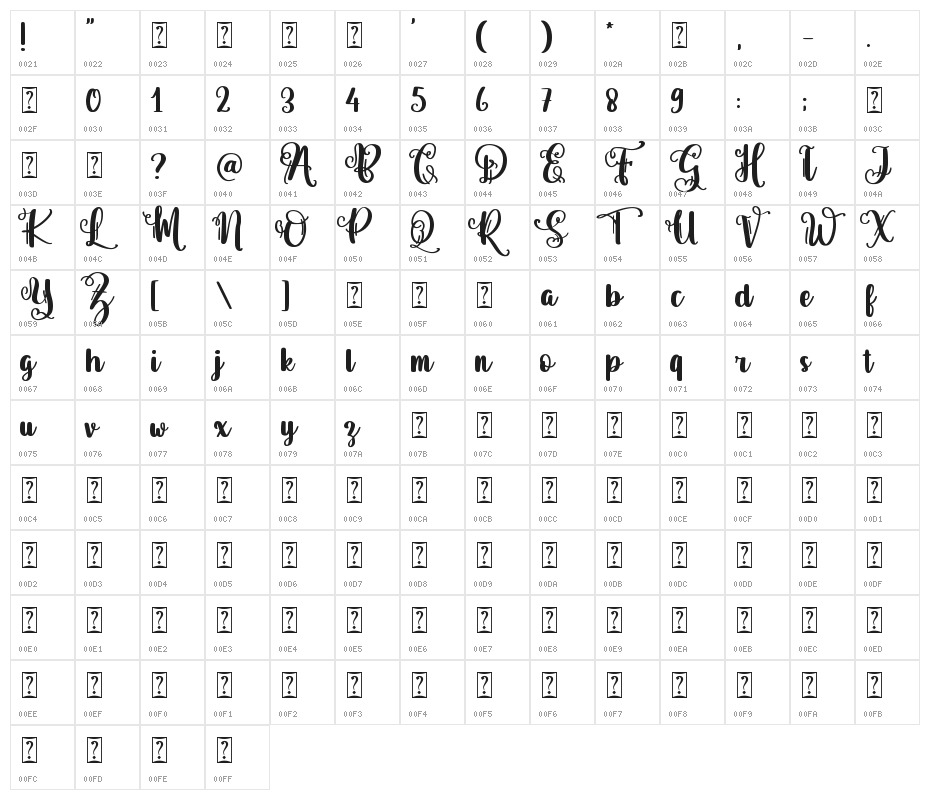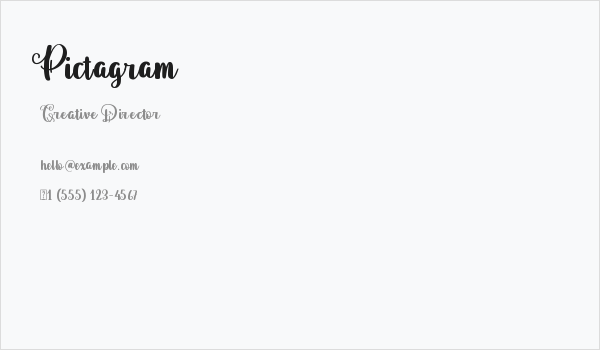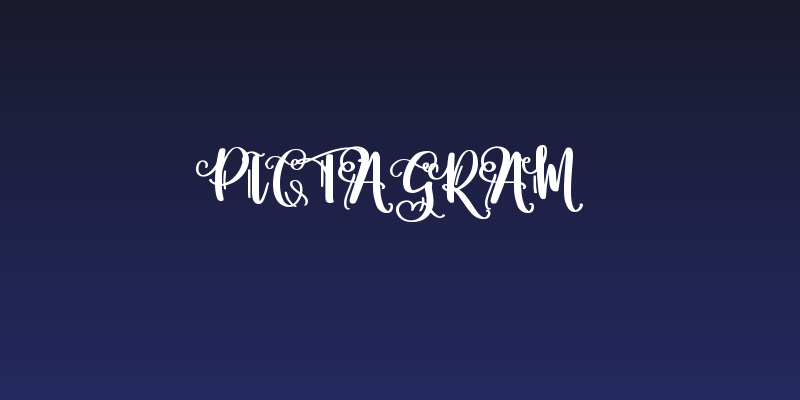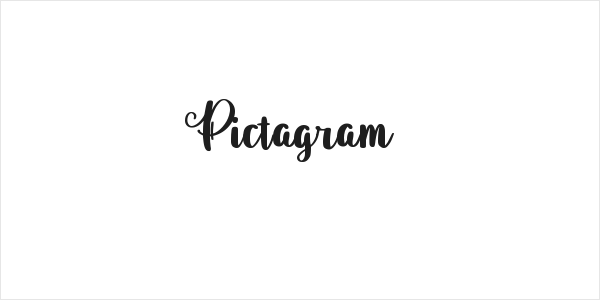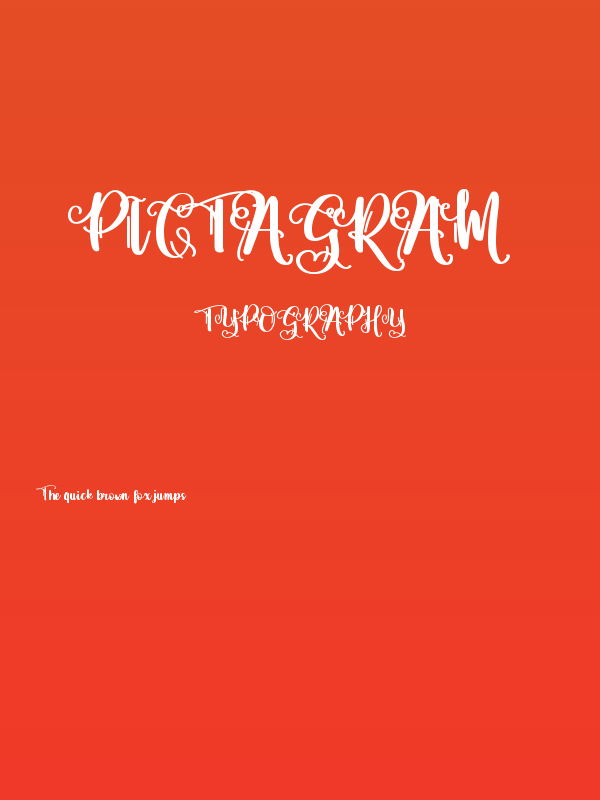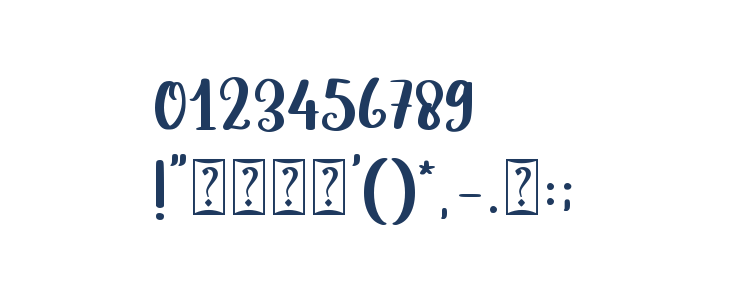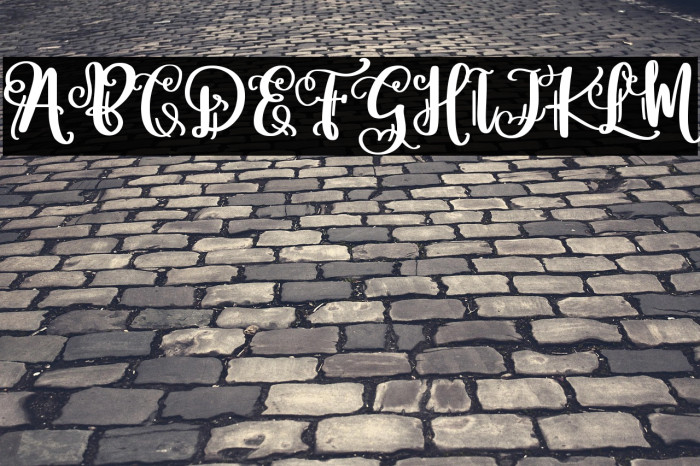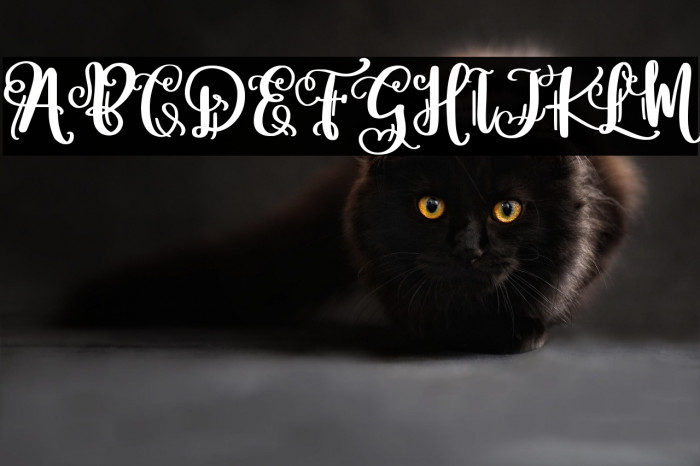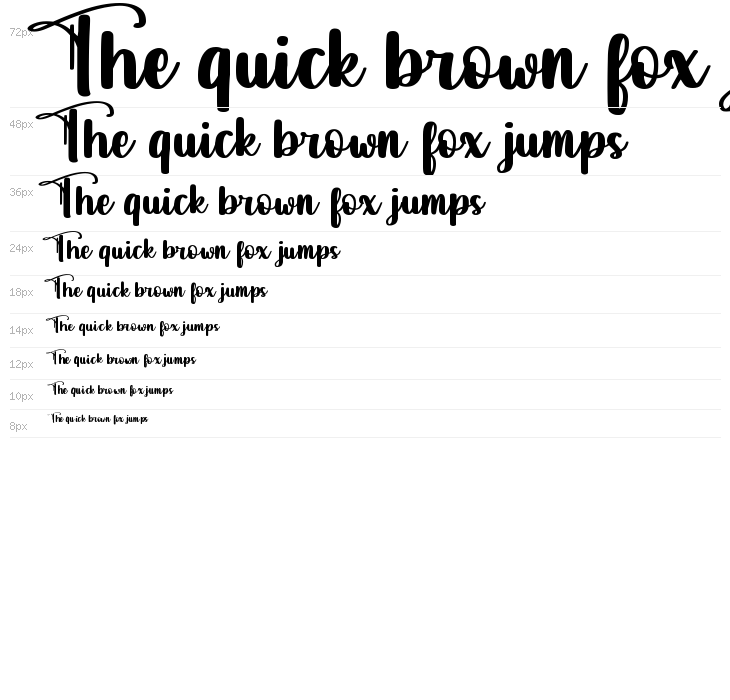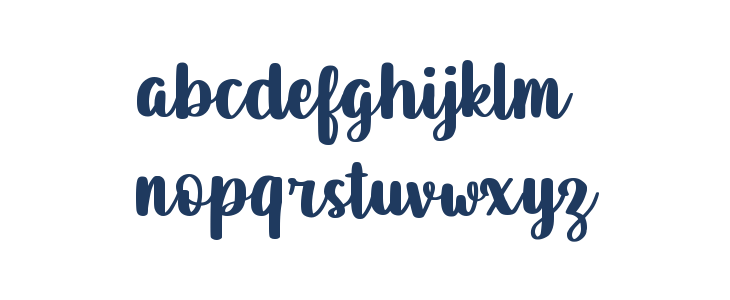
Pictagram Font
Pictagram Description
This font features a decorative and playful script style with elegant, flowing lines. The uppercase letters are adorned with intricate swirls and loops, giving them a whimsical and artistic flair. The lowercase letters maintain a smooth, connected appearance, enhancing the script's fluidity. Numbers are bold and slightly condensed, maintaining the playful essence of the font. Special characters are creatively designed, complementing the overall aesthetic. This font is ideal for projects that require a touch of elegance and creativity, such as invitations, branding, and artistic designs.
| Proposed Projects | Ideal for invitations, branding, artistic designs, and creative projects. |